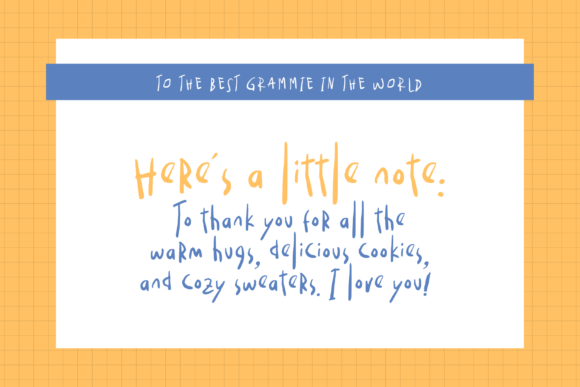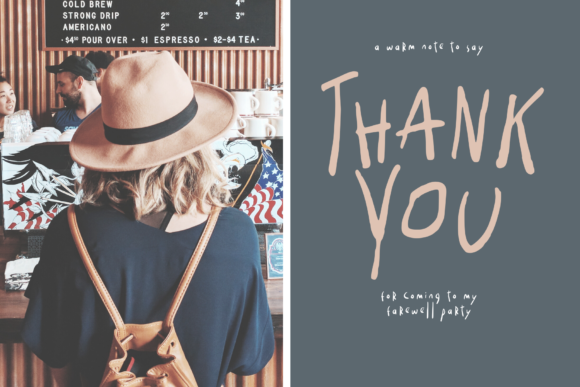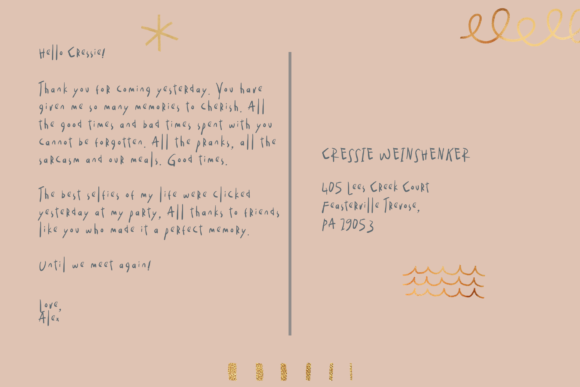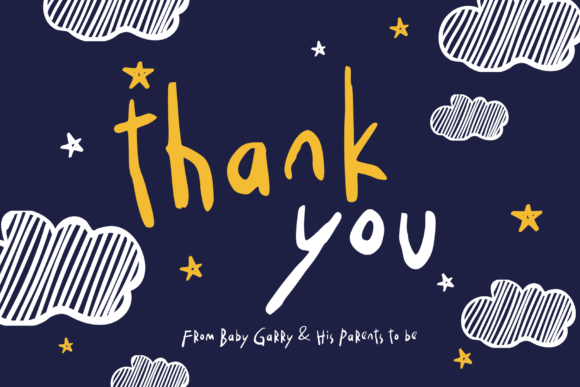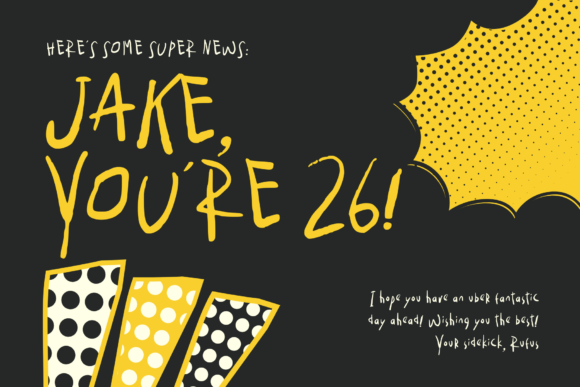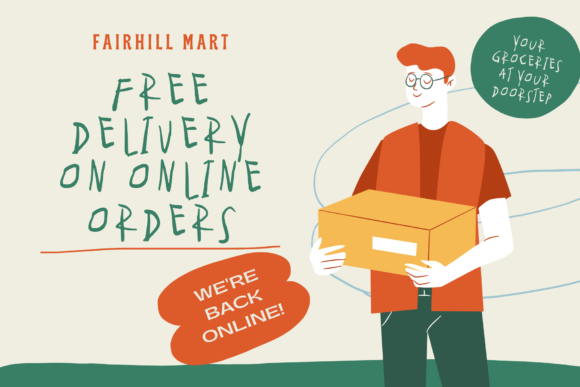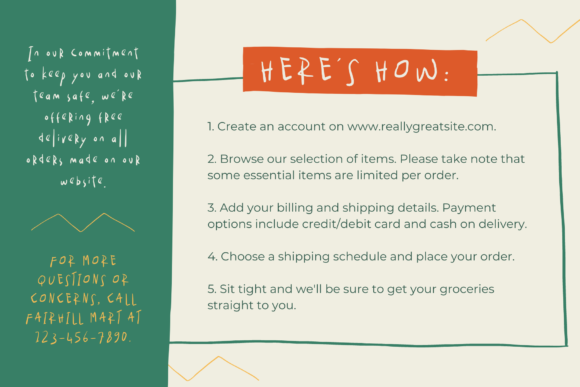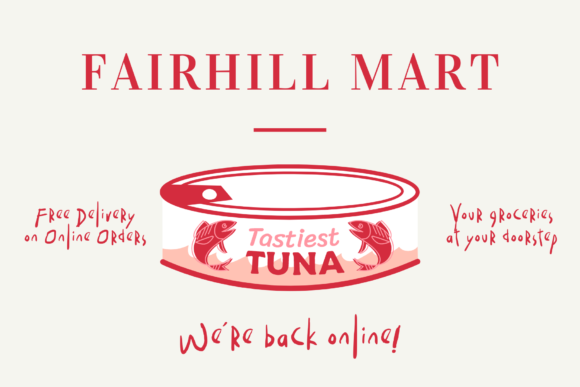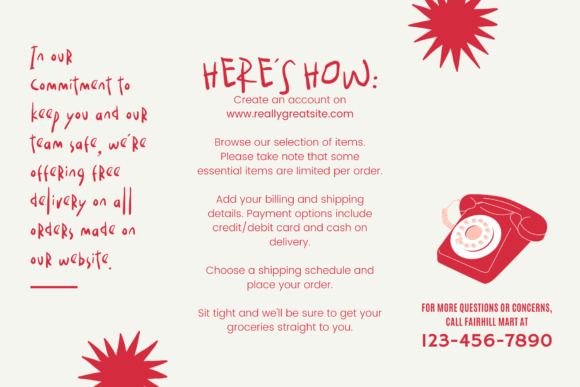
Carrier Font
About Carrier Font
Carrier is an asymmetrical and quirky lettered handwritten font that can be used for all chalkboard quotes or teaching material! Its authentic look will add a personal and realistic feel to your designs.